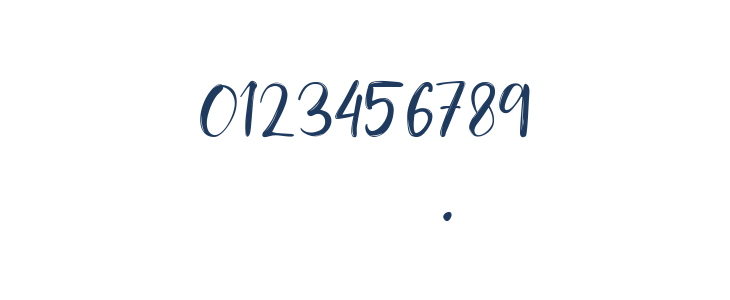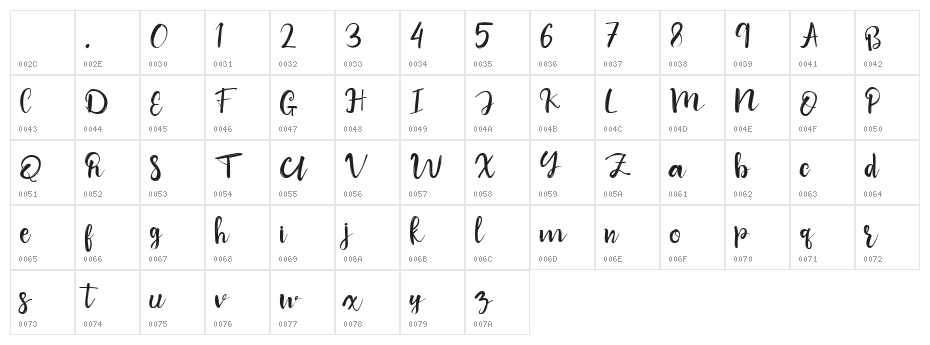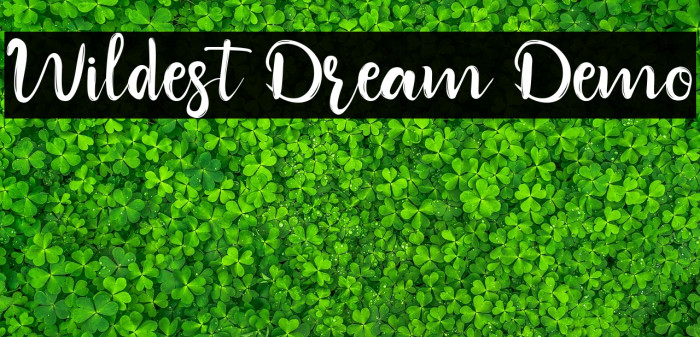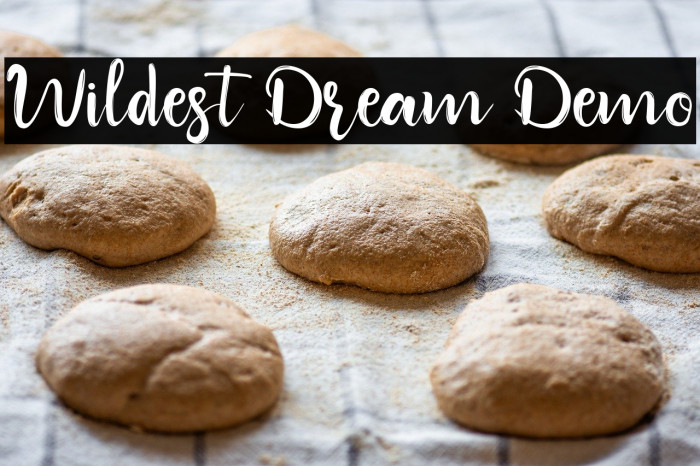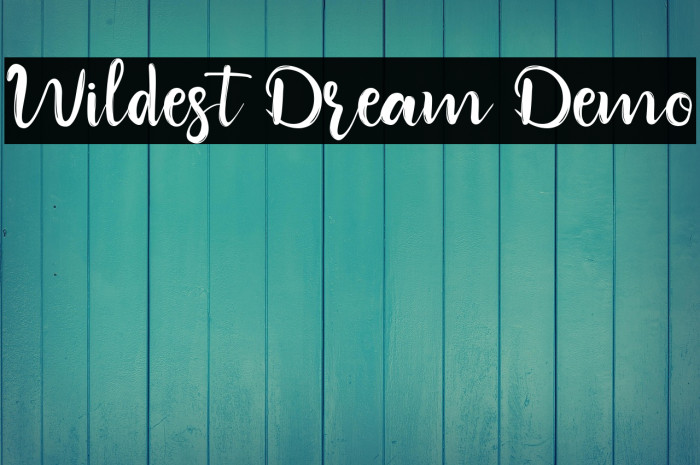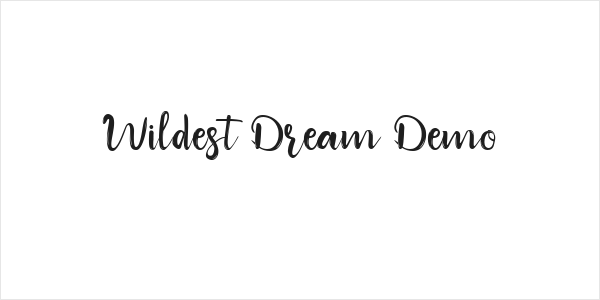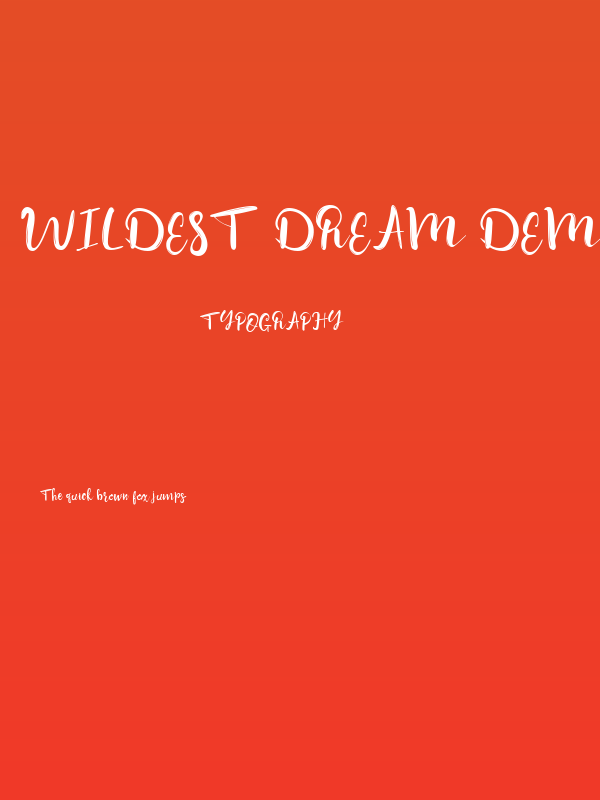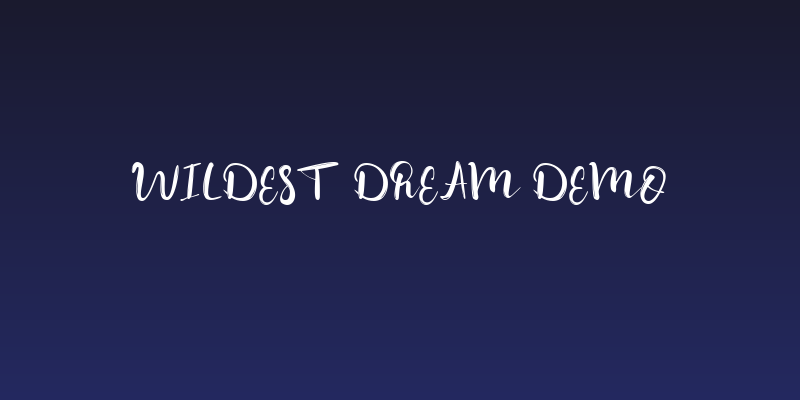
Wildest Dream Demo Font
Wildest Dream Demo Description
This font showcases a lively and expressive script style, characterized by its fluid and dynamic strokes. The uppercase letters exhibit a playful yet elegant flair, with varying stroke widths that add a sense of movement and energy. The lowercase letters maintain a cohesive flow, complementing the uppercase with their smooth curves and loops. The numerals are consistent with the overall style, offering a harmonious blend of readability and artistic expression. The special characters are thoughtfully integrated, enhancing the font's versatility. This font is ideal for projects that require a personal touch, such as invitations, greeting cards, or branding materials that aim to convey warmth and creativity.